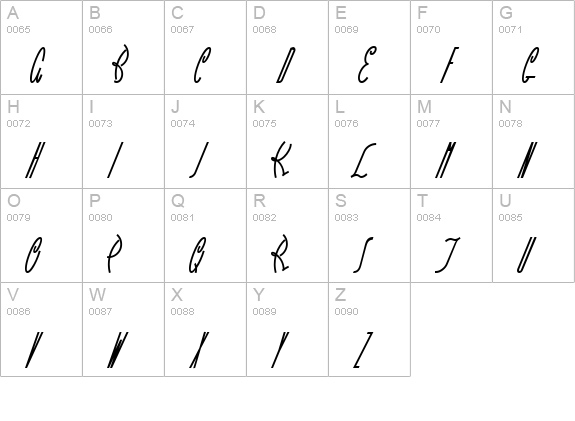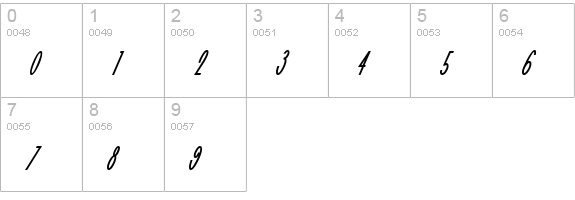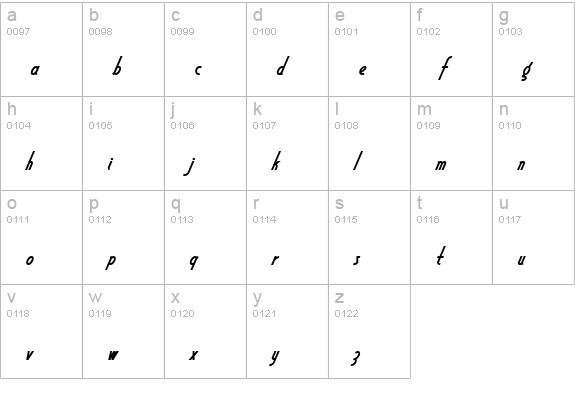
LittleRickeyNF Font Details
LittleRickeyNF is a charming and playful font that brings a touch of whimsy to any design project. This font features unique letterforms with a hand-drawn feel, making it perfect for adding a personal touch to invitations, posters, and more. With its quirky style and friendly appearance, LittleRickeyNF is sure to make your text stand out. Best of all, LittleRickeyNF is completely free to download at FontsMarket.com. So go ahead and add this delightful font to your collection today and let your creativity shine!